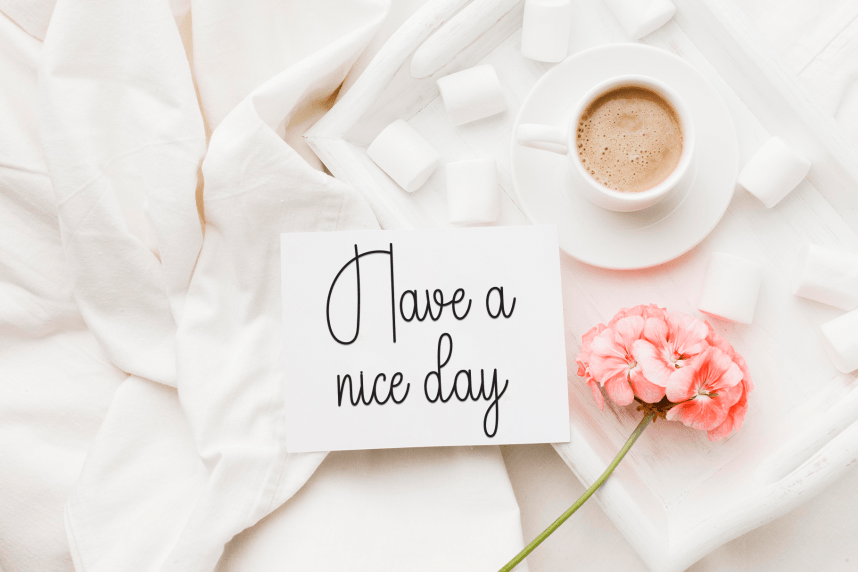
Softball – Simple Handwritten Font
Softball – Simple Handwritten Font is a sweet and friendly handwritten display font. Cute and fun, this font is ideal for writing wedding invitations, cards, or any other design that might need a playful touch!